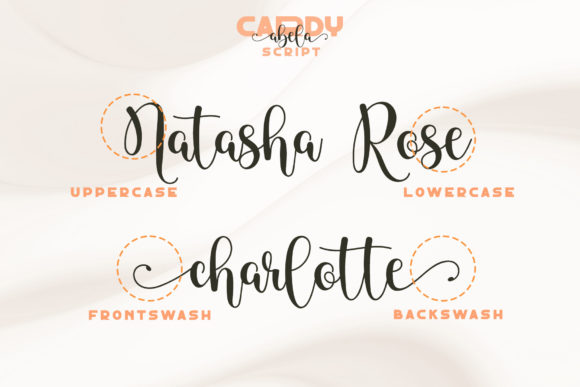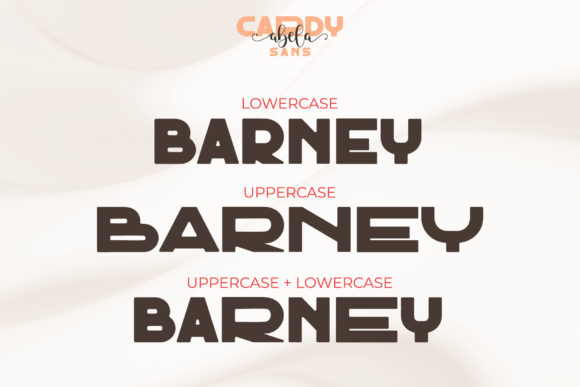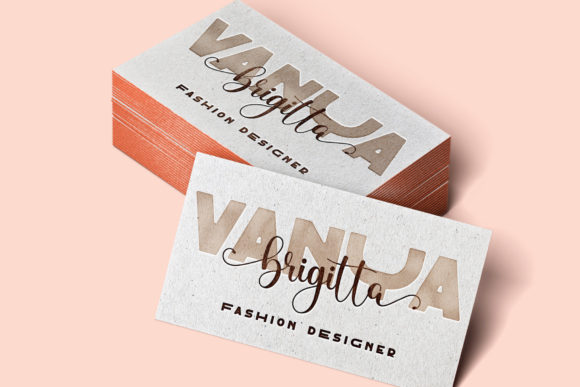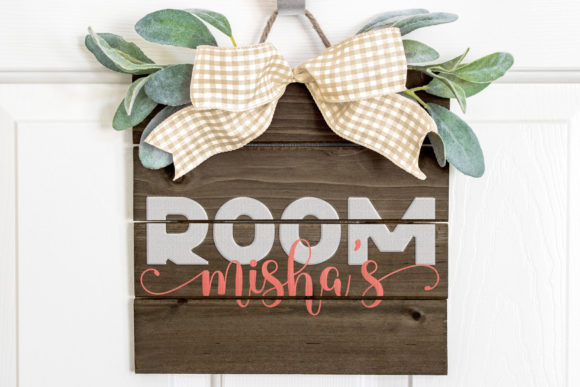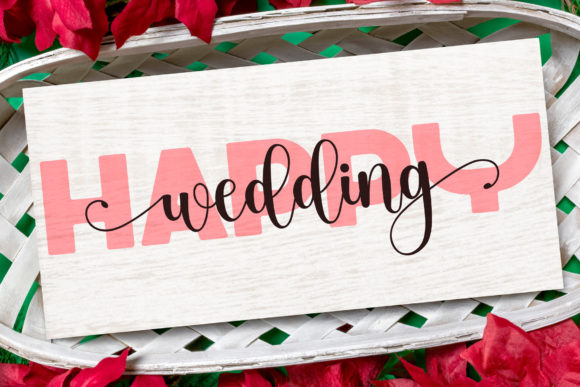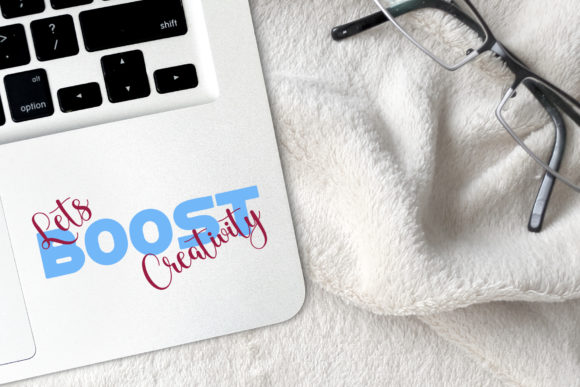
Introducing Cardy Abela Font: Elevate Your Designs with Elegance and Boldness
Are you a designer or crafter looking for a font that can add a touch of sophistication and uniqueness to your projects? Look no further than Cardy Abela Font. This versatile duo font combines the elegance of handwritten script with the boldness of sans serif, making it perfect for a wide range of design applications.
What Makes Cardy Abela Font Special?
Cardy Abela Font is a carefully crafted duo font that consists of two complementary fonts: a beautiful handwritten script and a clean sans serif font. This combination allows you to mix and match the two fonts to create stunning designs that are both elegant and bold. The font is perfect for wedding invitations, thank you cards, quotes, greeting cards, logos, business cards, and any other design that needs a unique touch.
Key Features of Cardy Abela Font
- Versatile duo font: Cardy Abela Font comes with two complementary fonts that can be used together or separately to create stunning designs.
- Elegant and bold: The font combines the elegance of handwritten script with the boldness of sans serif, making it perfect for a wide range of design applications.
- PUA encoded: The font is PUA encoded, which means you can access all of the glyphs and swashes with ease.
- Perfect for designers and crafters: Cardy Abela Font is designed to help designers and crafters create stunning designs that stand out from the crowd.
Use Cases for Cardy Abela Font
Cardy Abela Font is a versatile font that can be used in a wide range of design applications. Here are some use cases to get you started:
- Wedding invitations: The elegant handwritten script font is perfect for wedding invitations, adding a touch of sophistication and romance to your designs.
- Thank you cards: The bold sans serif font is perfect for thank you cards, adding a touch of modernity and style to your designs.
- Quotes and typography: The font’s elegant and bold styles make it perfect for quotes and typography designs that require a touch of sophistication.
- Greeting cards: The font’s versatility makes it perfect for greeting cards, allowing you to create stunning designs for any occasion.
- Logos and branding: The font’s unique style makes it perfect for logos and branding designs that require a touch of elegance and boldness.
- Business cards: The font’s clean and modern style makes it perfect for business cards, adding a touch of professionalism to your designs.
Why Choose Cardy Abela Font?
With so many fonts available, why choose Cardy Abela Font? Here are a few reasons:
- Unique style: Cardy Abela Font has a unique style that sets it apart from other fonts, making it perfect for designers and crafters who want to create stunning designs.
- Ease of use: The font is PUA encoded, making it easy to access all of the glyphs and swashes.
- Versatility: The font’s versatility makes it perfect for a wide range of design applications.
- High-quality design: The font is carefully crafted to ensure high-quality design, making it perfect for professional designers and crafters.
Cardy Abela Font is a versatile, elegant yet bold duo font that is perfect for designers and crafters who want to create stunning designs. With its unique style, ease of use, and versatility, this font is sure to become a favorite in your design arsenal. Whether you’re creating wedding invitations, thank you cards, quotes, greeting cards, logos, business cards, or any other design, Cardy Abela Font is the perfect choice.